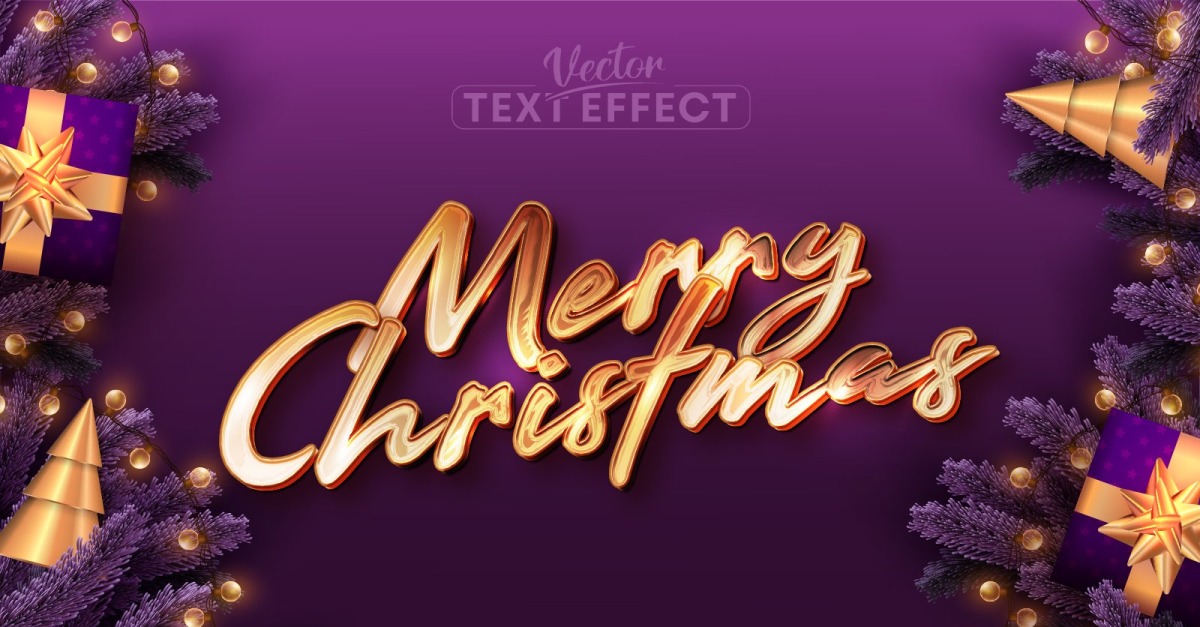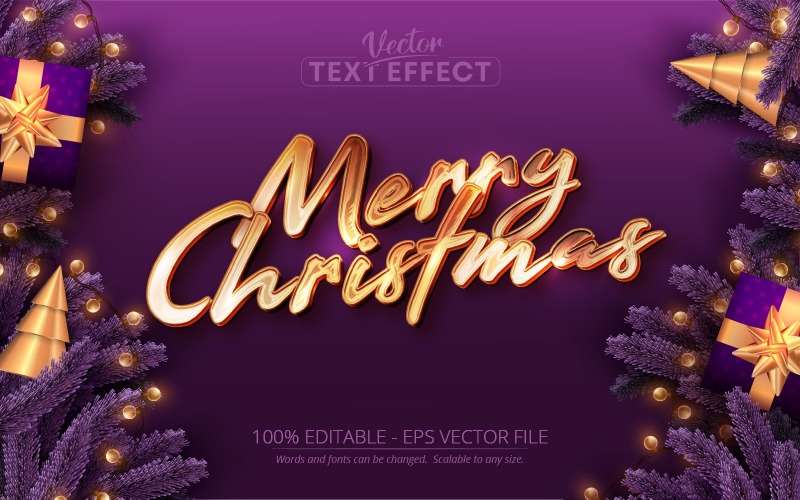
Merry Christmas - Luxury Gold Style Editable Text Effect, Font Style, Graphics Illustration
I am happy to present you my new Christmas shiny gold style text effect design. Just edit the text and type whatever you want. The effect will be applied. You will make a difference in your projects with this new text effect. Open this text effect with adobe illustrator and use it in any project you want.
•Merry christmas text, shiny gold color style editable text effect